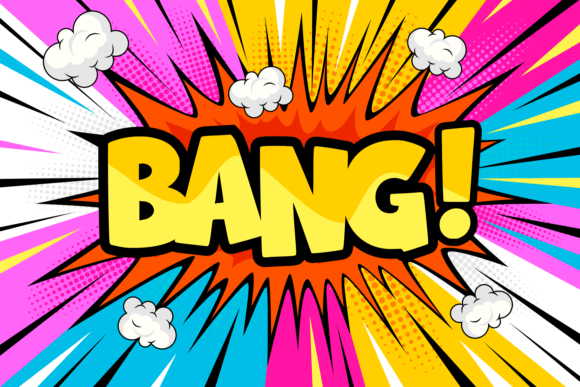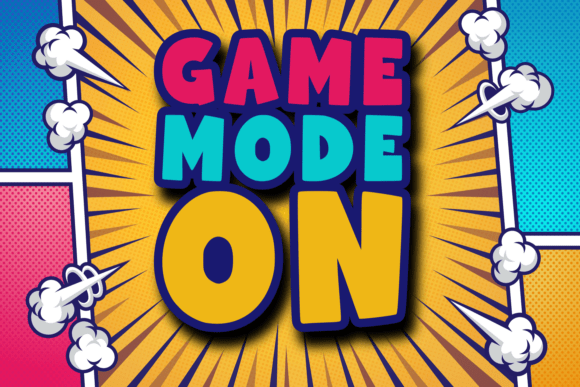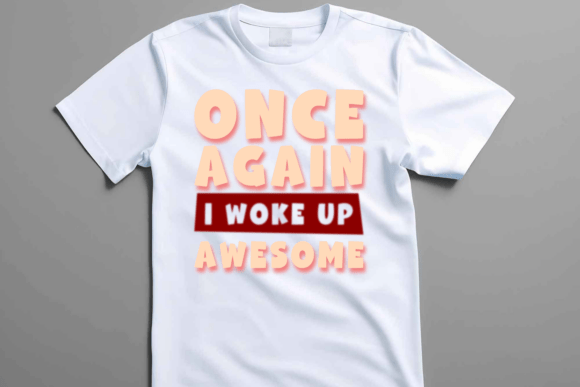
Unlocking the Playful Potential of Typography: A Deep Dive into Giggle Bold Font
I’ll never forget the time I was working on a children’s merchandise project, tasked with creating a brand identity that was both fun and engaging. As I scrolled through font after font, nothing seemed quite right – until I stumbled upon Giggle Bold. This whimsical, robust cartoon-inspired font instantly captured the effervescent spirit I was looking for, breathing life into my project with its quirky aesthetics.
With Giggle Bold, you can expect to inject your design works with a powerhouse of buoyant energy, radiating a warm and approachable ambiance in every impression it makes. In this article, we’ll explore the world of Giggle Bold, covering its features, how to use it on various platforms, similar fonts, and more.
An Honest Review of Giggle Bold Font
- ✨ Unique and Quirky Aesthetics: Giggle Bold boasts a one-of-a-kind design that instantly grabs attention and adds a playful touch to any project.
- ✅ Highly Versatile: From children’s merchandise to dynamic animations, Giggle Bold proves to be an incredibly versatile font that adapts to various design needs.
- 💥 Emotional Connection: This font has a way of evoking feelings of joy and warmth, making it perfect for projects that aim to connect with their audience on an emotional level.
While Giggle Bold is an amazing font, there are a few things to keep in mind:
- ⚠️ Legibility at Small Sizes: Due to its bold and playful nature, Giggle Bold may not be the best choice for body text or small font sizes, where readability is crucial.
- 🤔 Pairing with Other Fonts: As with any bold font, pairing Giggle Bold with other fonts can be a bit tricky. It’s essential to choose complementary fonts that don’t compete for attention.
The Backstory of Giggle Bold Font
Giggle Bold was designed with the intention of capturing the pure joy and playfulness of childhood. Its creator, a talented typographer, aimed to craft a font that would bring a smile to people’s faces and add a touch of whimsy to their designs. With its bold, chunky aesthetic and quirky personality, Giggle Bold has become a go-to font for designers looking to infuse their projects with a sense of fun and energy.
Q: Is Giggle Bold suitable for professional branding?
A: While Giggle Bold is a playful font, it can be used for professional branding, especially for companies that cater to a younger audience or want to convey a sense of fun and approachability.